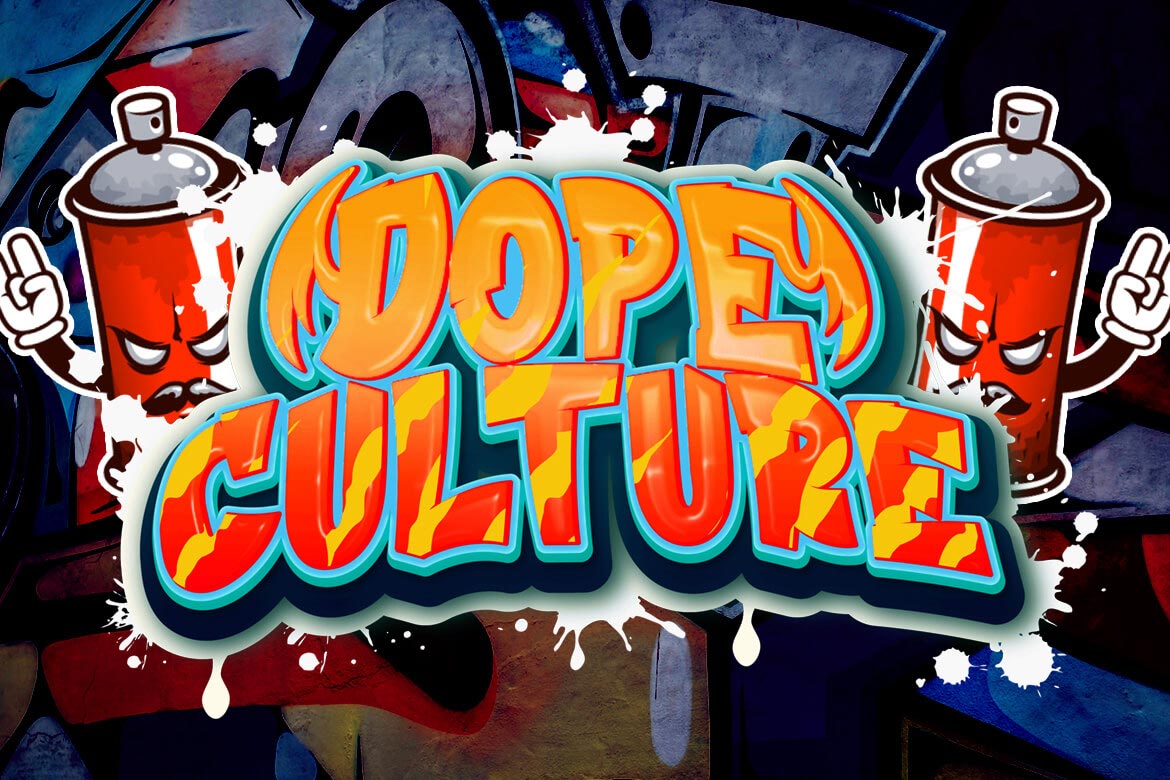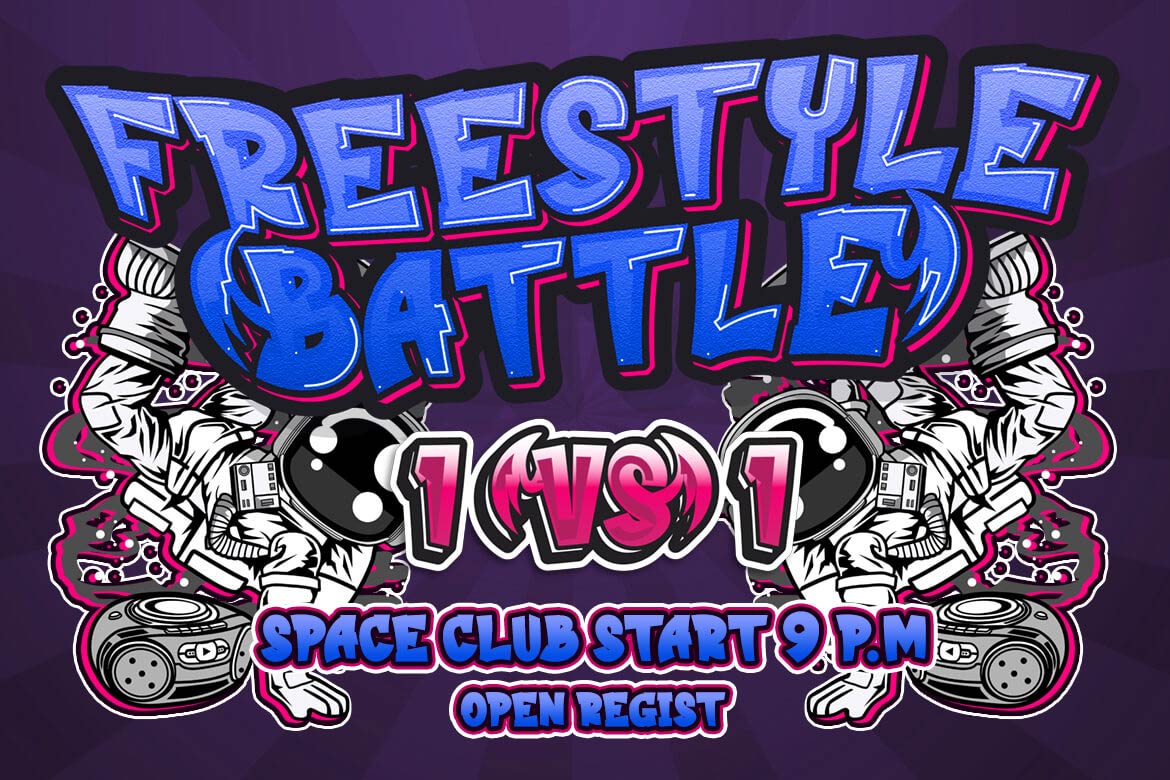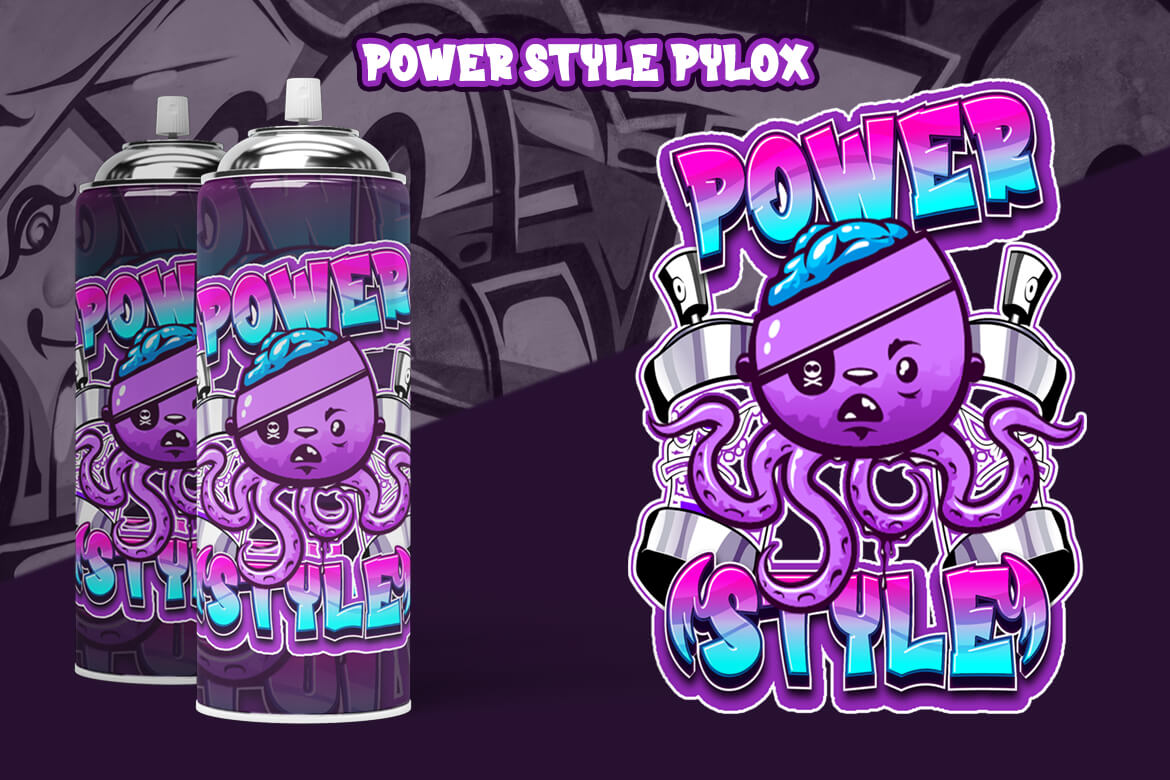
Hekba Font
Hekba Display Font
This is a graffiti font with gorgeous shapes and blends that are absolutely one-of-a-kind, as well as a distinctive theme that helps this typeface stand out and be powerful. Use this font to make your project look trendy, cool, and fun. Of course, your audience will remember your project because it looks wonderful. So, what are you waiting for? Get it right away!
This graffiti font is great for product logos, poster titles, headlines, packaging, film titles, logotypes, gorgeous writing, and trendy graffiti designs, among other things.
Of course, if you utilize this font in your numerous creative projects, they will be perfect and outstanding. Use this typeface right away for your one-of-a-kind and remarkable projects.